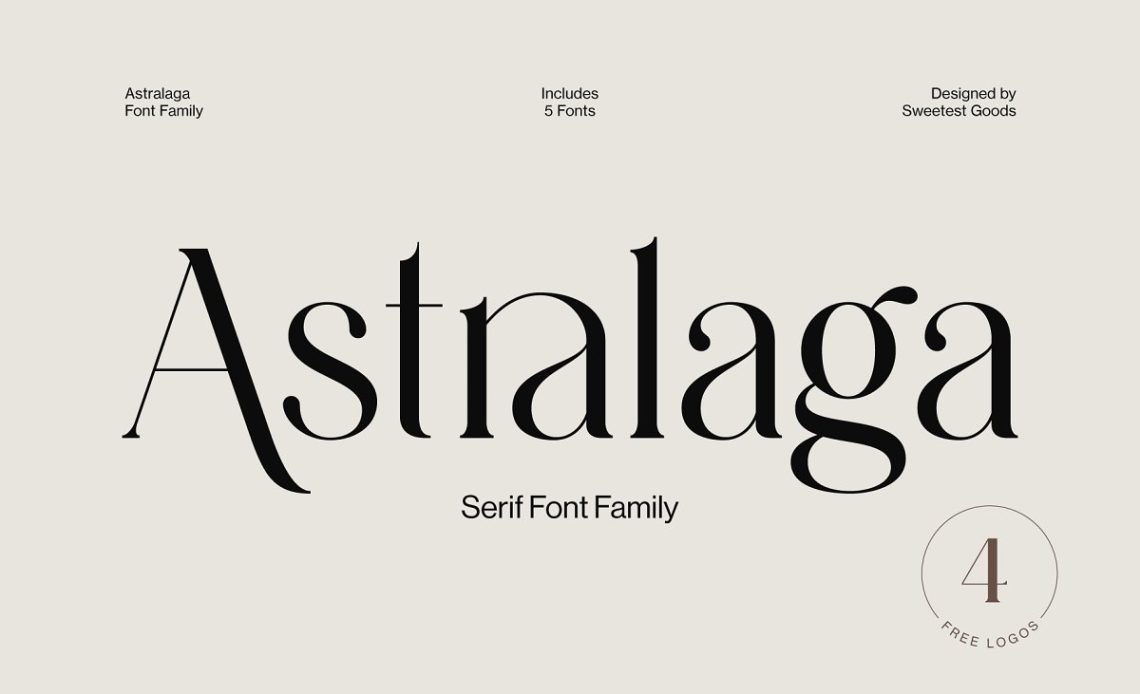
Introducing Astralaga, the elegant font family that will elevate your projects to new heights! Crafted with the utmost care, every letter has been hand-drawn to exude timeless beauty and grace. With over 50 alternates & ligatures, multilingual support, and 4 free logo designs, Astralaga is our best work yet!
The five weights of Astralaga provide a range of choices that will help you find the best typographic character for your project. From the very delicate and elegant Light weight to the pure boldness and elegance of the Bold weight, there is an Astralaga weight for every occasion. Each weight is well-suited for large display uses and high-impact headlines, ensuring your message is communicated with clarity and style.
Astralaga's high contrast serif typeface features a total of 1850 glyphs, offering comprehensive language support. The available stylistic alternates and ligatures offer a number of different options that give your logo or business card a unique look. And, we've included 4 free logo templates that are fully customizable, so you can use them however you like! These logo templates are perfect for businesses, brands, and personal projects, and they are super easy to edit using Photoshop, Illustrator, or any other vector-based software.
At SG Type, we pride ourselves on delivering quality fonts that inspire creativity and evoke emotion. Astralaga is no exception. This versatile font family has a timeless, classic appeal that will captivate your audience and leave a lasting impression. With 40 ligatures and 11 alternate glyphs per weight, Astralaga provides an abundance of creative opportunities to make your designs stand out.
Astralaga is the perfect font family for anyone looking to add a touch of elegance and sophistication to their projects. Whether you're designing a wedding invitation, creating a logo for your business, or crafting a high-impact headline, Astralaga has got you covered. Download it now and experience the beauty and versatility of this stunning font family for yourself!